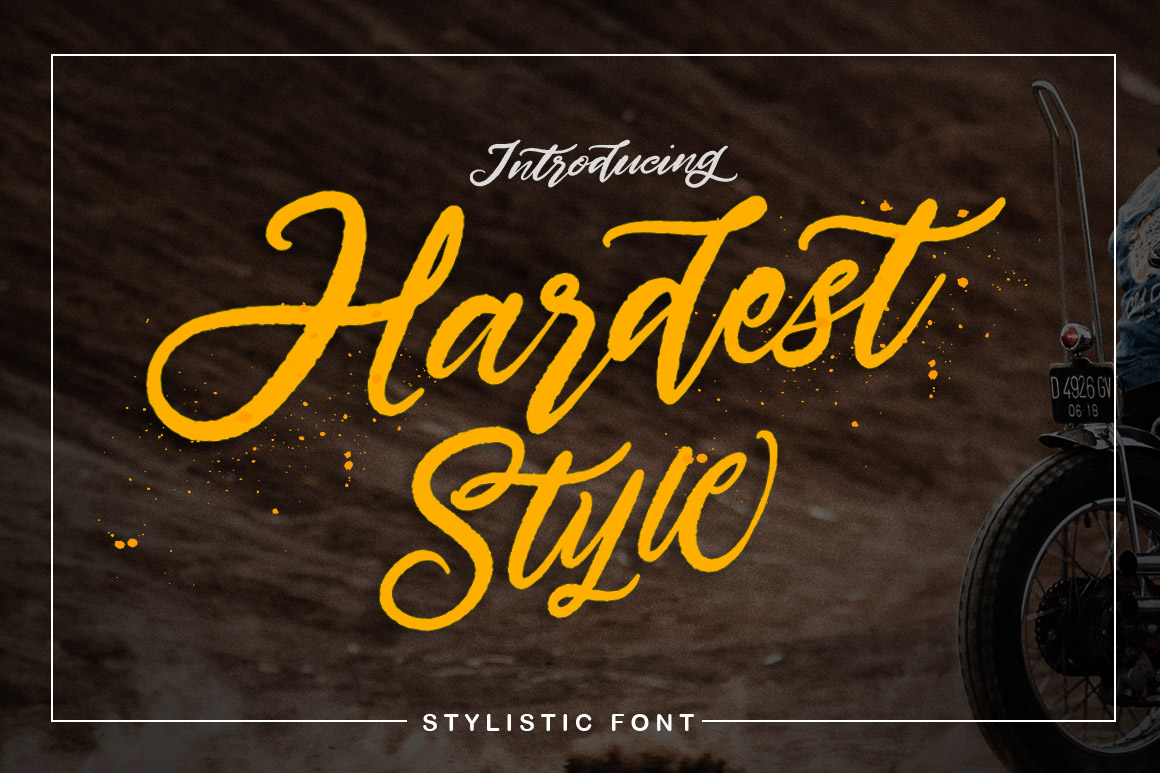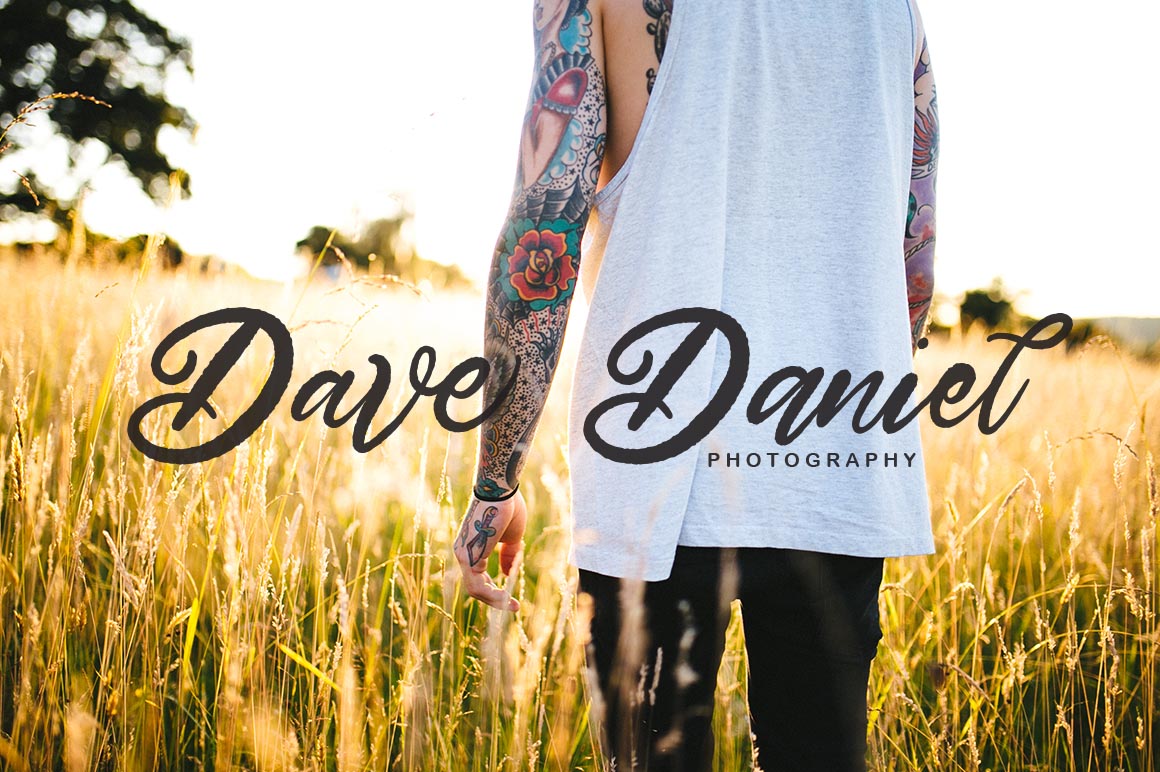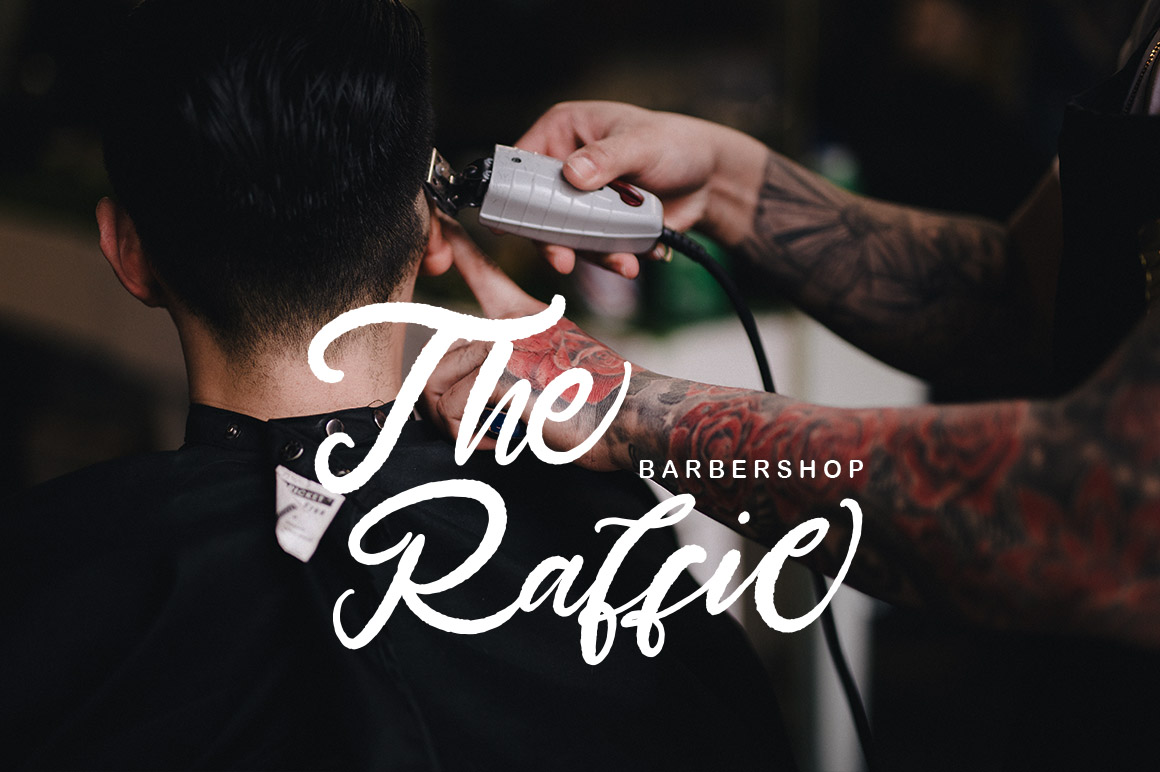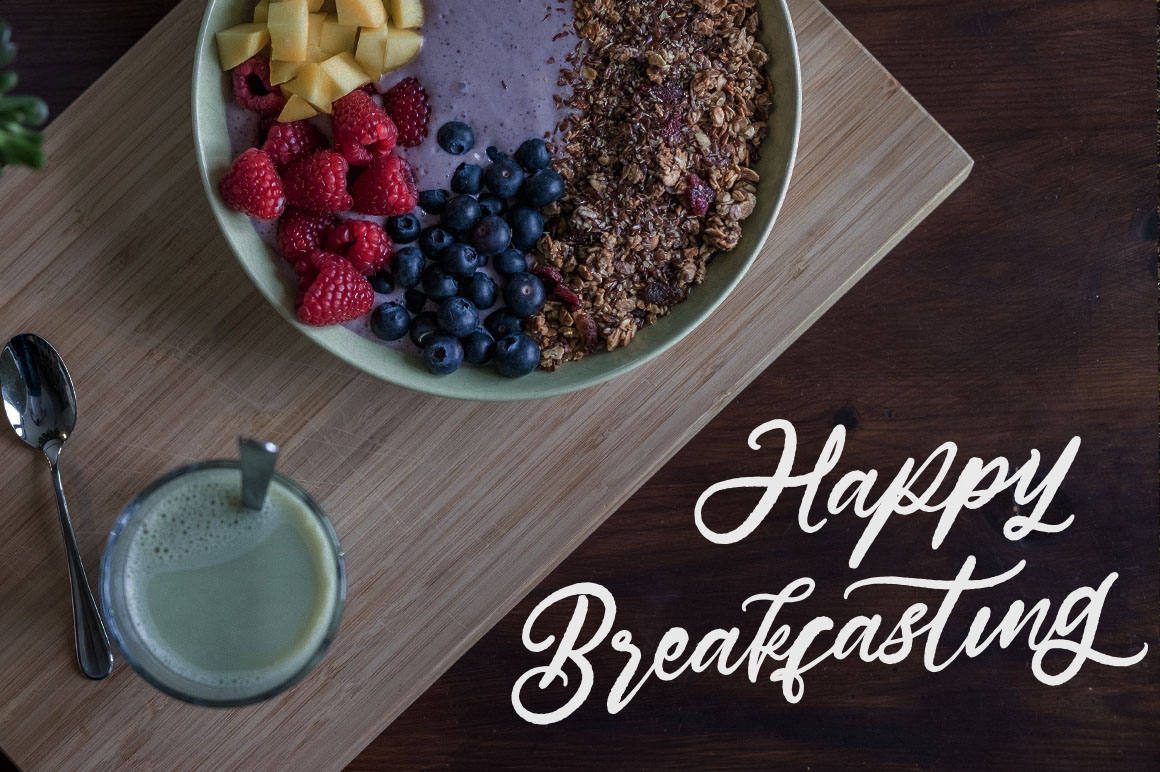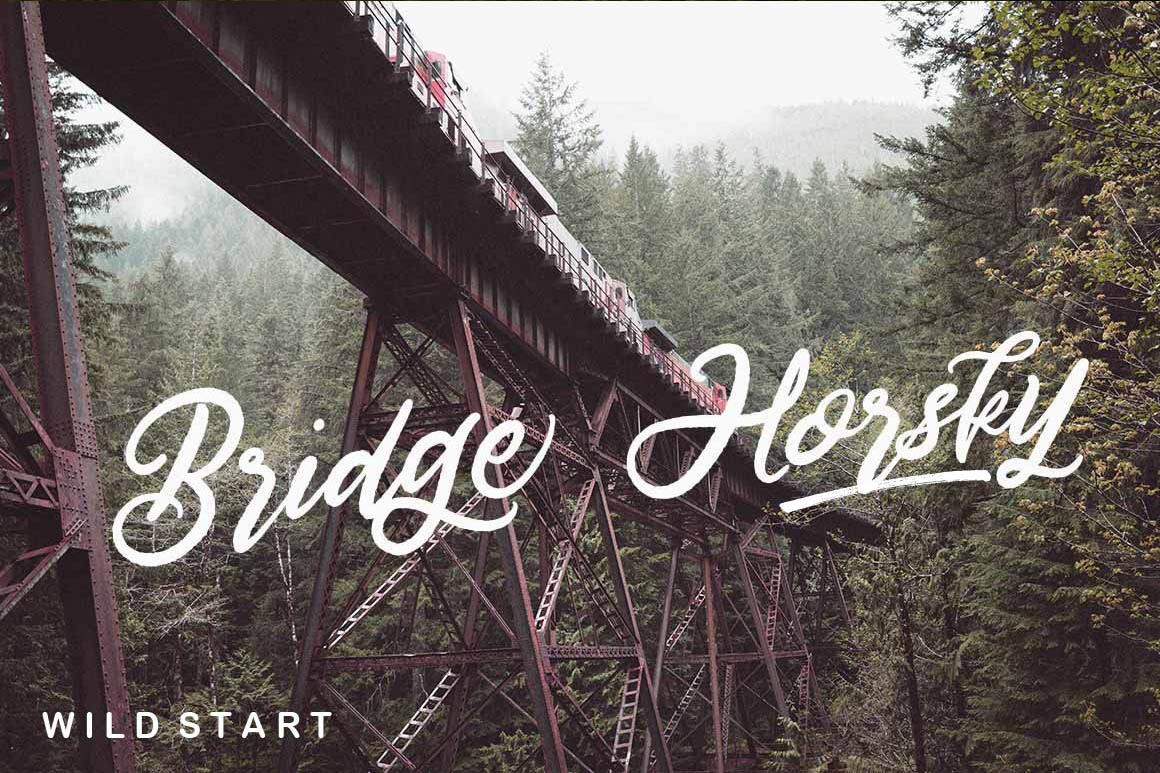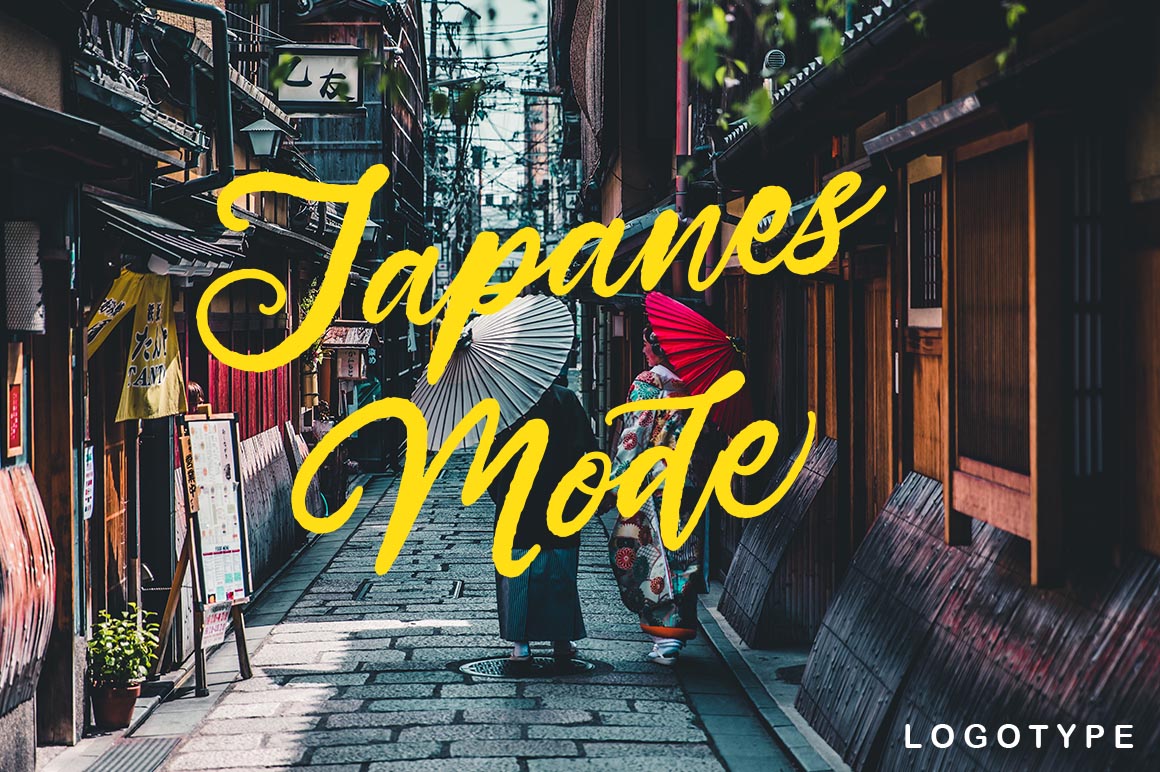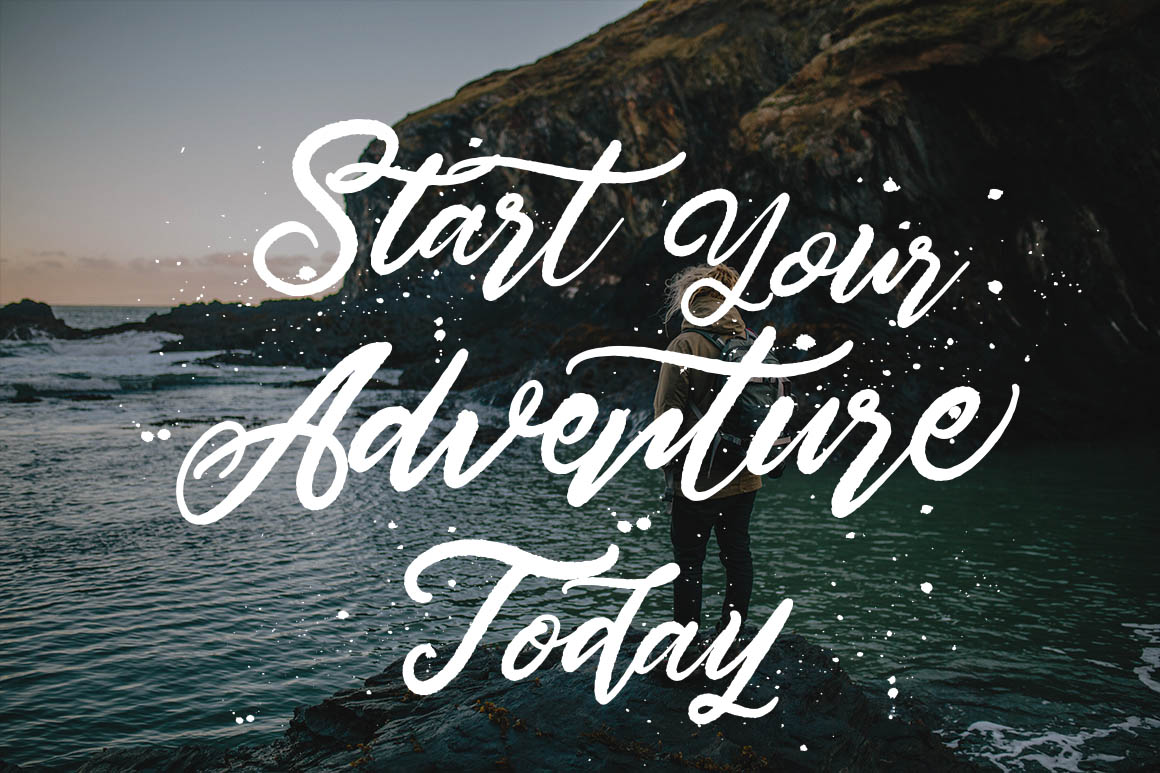
Hardest Style Font
About Hardest Style Font
Hardest Style is is a handmade brushes stylist designed to combine perfectly and allow you to create stunning hand-lettering quickly and easily. This is a dynamic script with texture and grace, making it suitable for almost any design style possible.